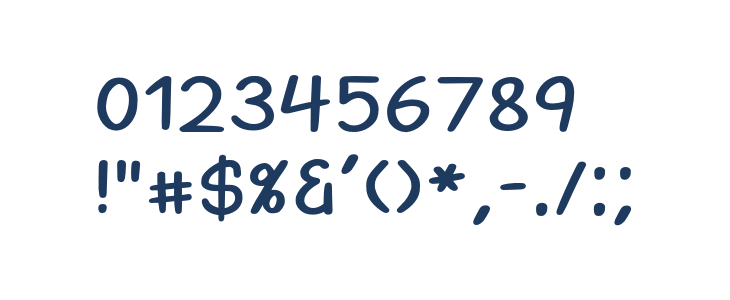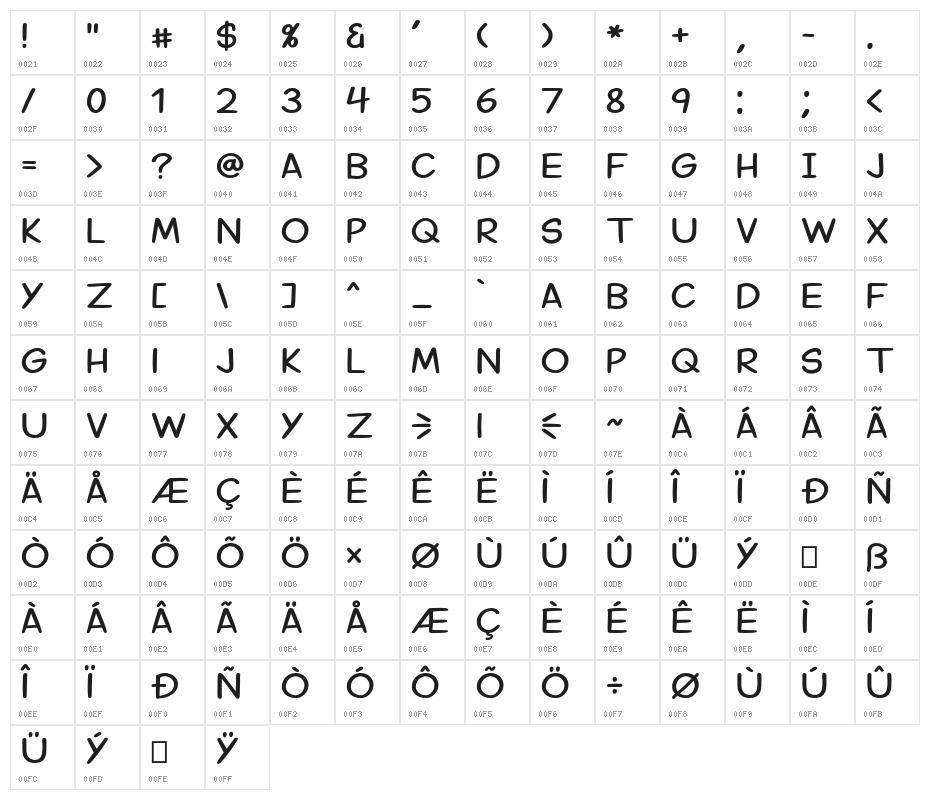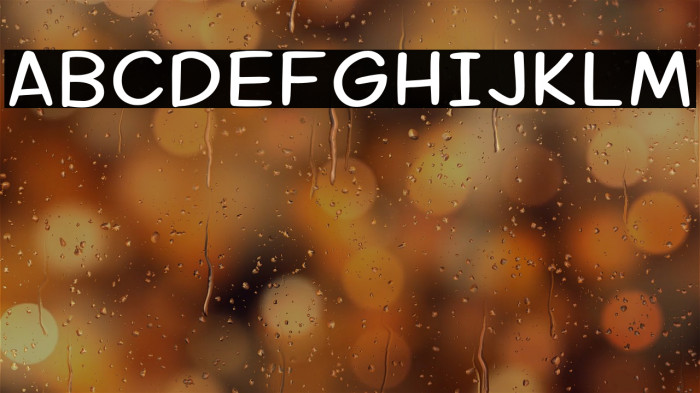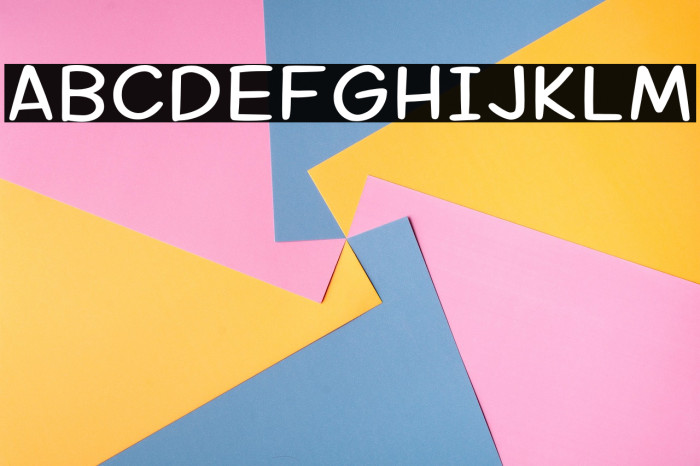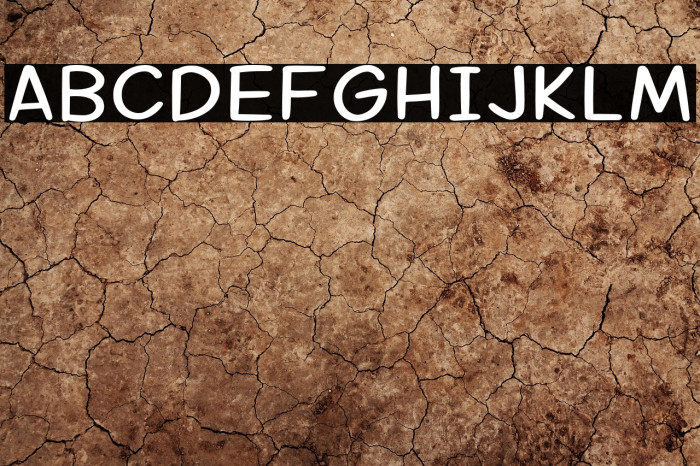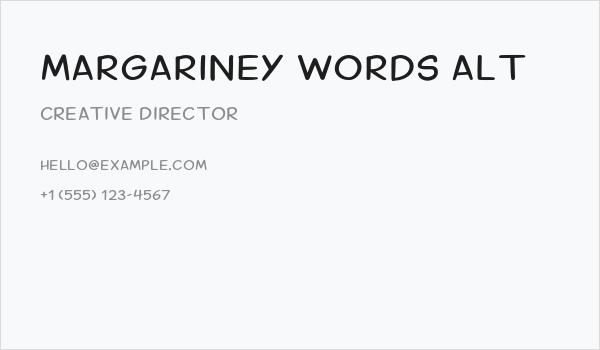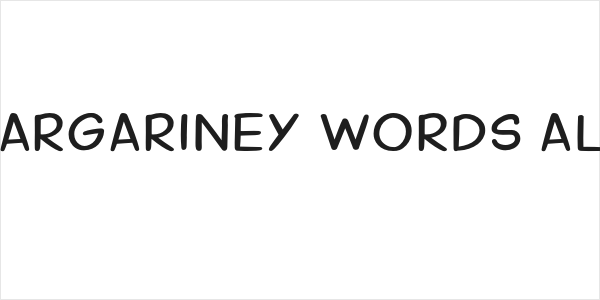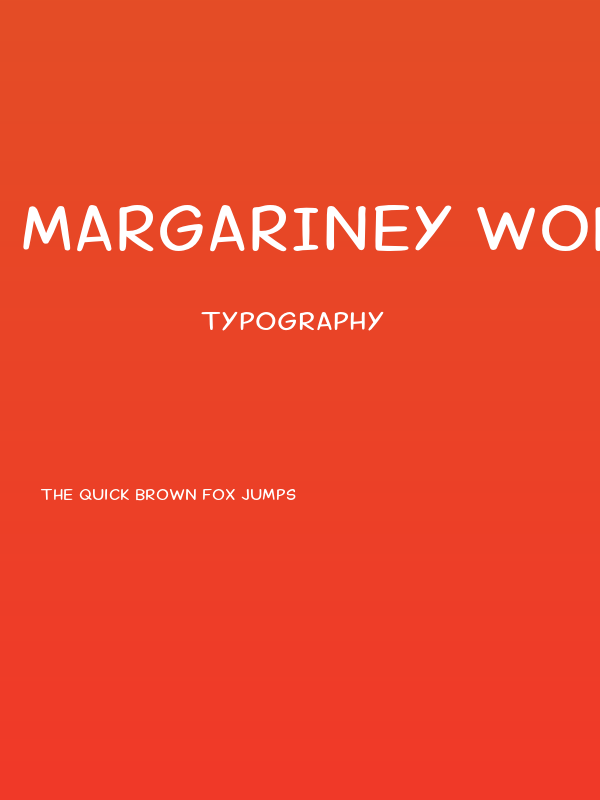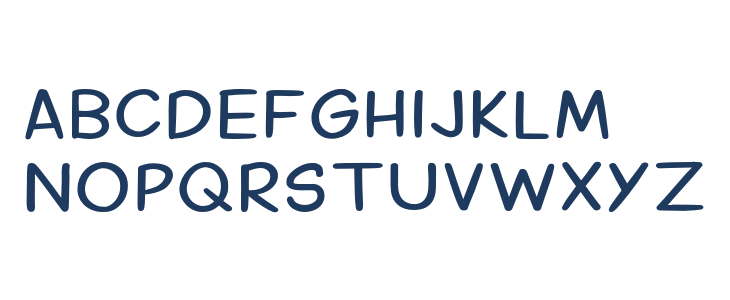
Margariney Words Alt Font
Margariney Words Alt Description
This font exudes a playful and casual vibe with its rounded, hand-drawn appearance. Each character is slightly irregular, giving it a friendly and approachable feel. The strokes are consistent in thickness, providing a uniform look across all letters and numbers. The font maintains a balance between readability and style, making it suitable for informal and creative projects. Its unique charm lies in the subtle variations in each letter, which adds a personal touch to any design.
| Proposed Projects | Ideal for children's books, casual branding, greeting cards, and playful social media graphics. |